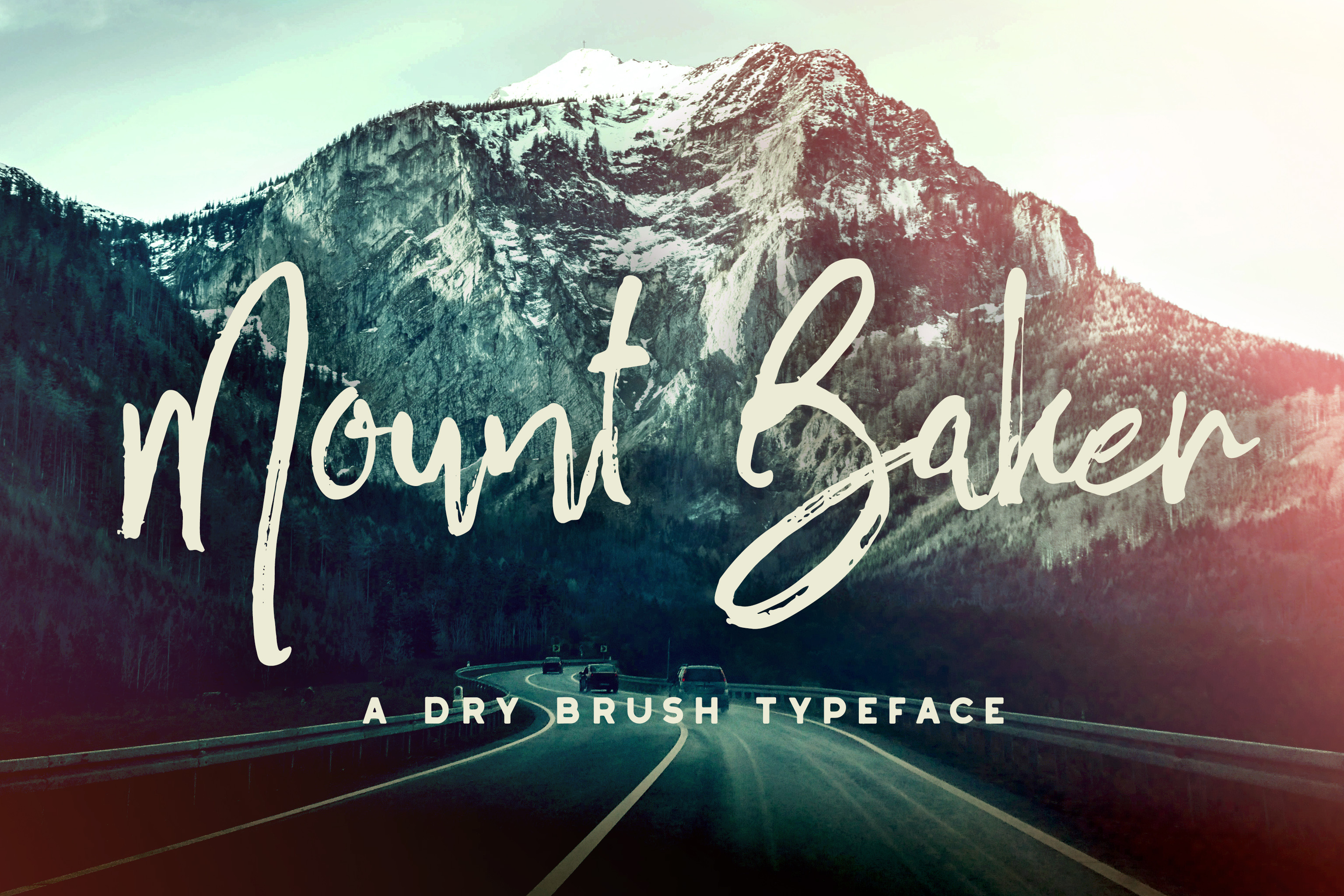
Mount Baker Brush Font
This font was inspired by the spirit of the outdoors, with a little bit of grit in mind. Mount Baker is perfect for logos, branding and personal signatures.
Included in the font pack are also 26 underline swashes, to give your piece a little extra boost. One for each letter to make things easy to use!
-Mount Baker (regular) - The best signature script money can find! Mount Baker is available in OTF format with Stylistic Alternates for all of the lowercase characters. In other words, if you don't want two lowercase letters looking the exact same, you have a second option. The font is also included in .TTF format.
-Mount Baker (underlines) - Want to add a little something extra to your text? Try out this font file for size. Each of the 26 lowercase characters match up with a different hand drawn underline, making the font file quick and easy to use. There's something to fit every project.